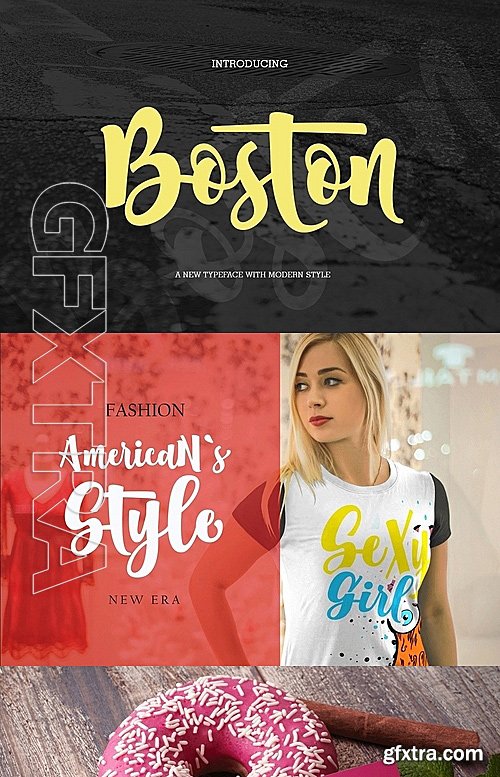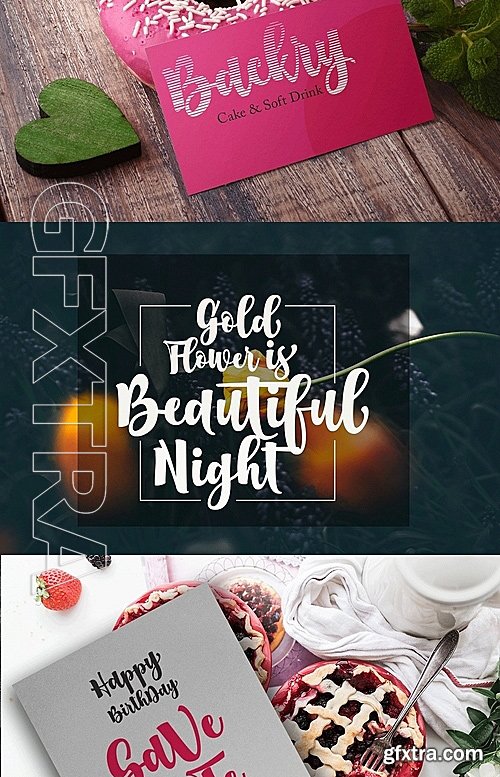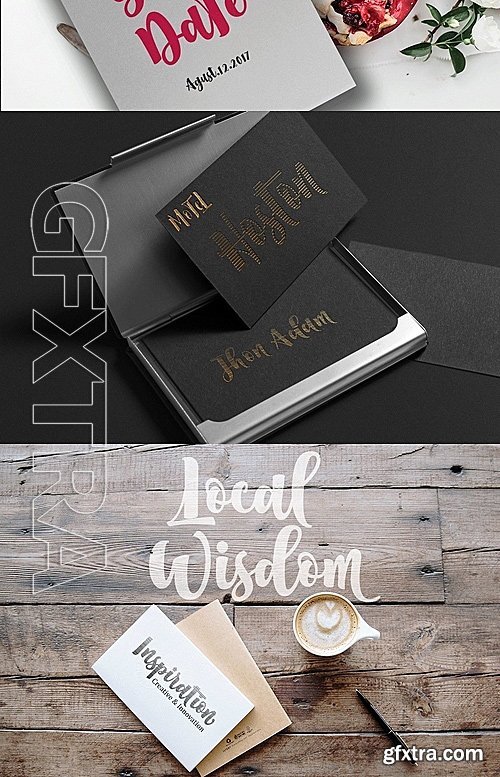
Boston is the font style handmade dancing and then live trace to have unique ., the writing style is very natural. The Features of this fonts is; Standart ligatures, Stylistic Alternates, Stylistic sets, PUA Unicode (Private Use Areas), File font Boston Include ; Boston OTF, Boston TTF, Boston Gr OTF, Boston Gr TTF, . Programs that support in this font is a Adobe Photo Shop, Adobe Illustrator, Adobe Indesign, Corel Draw and Microsoft Office.